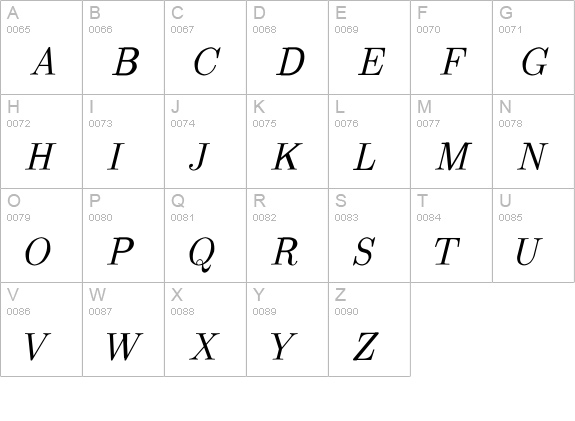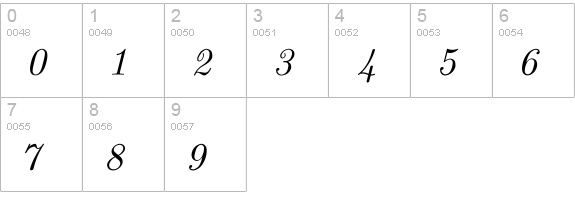
CM_Text Italic is a distinctive, italic variant in the CM_Text typeface family \xE2\x80\x94 well suited to design and typography projects.
CM_Text Italic font is a stylish and modern typeface that adds a sophisticated touch to any design project. With its sleek and elegant italicized letters, this font is perfect for creating eye-catching headings, quotes, and other text elements. The graceful curves and slanted angles of CM_Text Italic font exude a sense of refinement and elegance, making it a versatile choice for a wide range of design applications. Best of all, CM_Text Italic font is available for free download at FontsMarket.com. Whether you're working on a personal project or a professional design, this font is a valuable addition to your font collection. Download CM_Text Italic font today and elevate your designs with its distinctive and polished appearance.